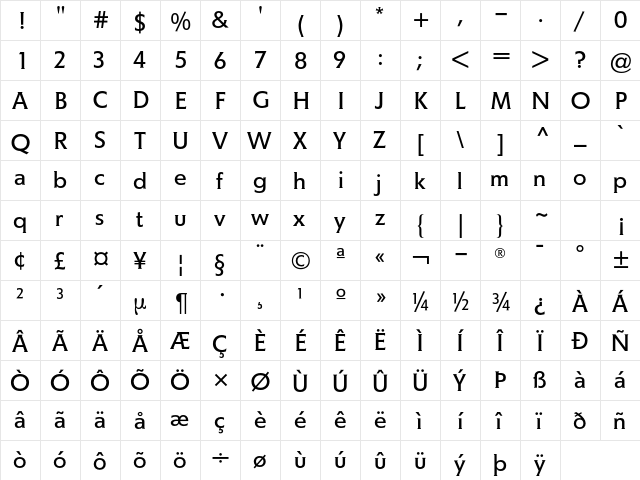
Memo Std Regular
Design Context for Memo Std Typeface
Memo Std offers clean, dependable letterforms without strong stylistic allegiance, making it a practical choice for designers who need flexibility.
Pro Tip: Use Memo Std in both headline and body roles to test its range before committing to a single application.